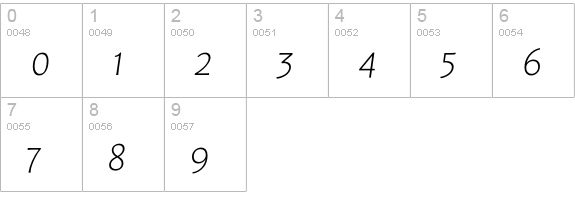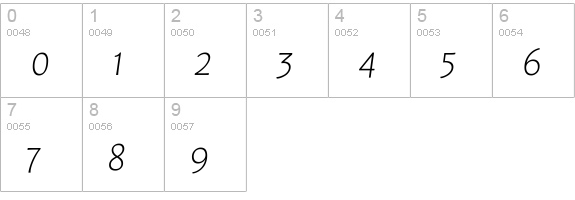
Leksa Sans ExtraLight Italic is an airy, ultra-refined, italic variant in the Leksa typeface family \xE2\x80\x94 well suited to minimalist headlines and refined display use.
Leksa Sans ExtraLight Italic font exudes elegance and sophistication with its delicate and slanted design. The subtle slant adds a touch of modernity to the otherwise classic sans serif style, making it perfect for projects that require a blend of tradition and contemporary flair. This font is ideal for creating a sense of lightness and grace in various design projects, from branding to editorial layouts. Its clean lines and stylish italicized form make it a versatile choice for both print and digital applications. The best part? Leksa Sans ExtraLight Italic font is available for free download at FontsMarket.com. Now you can elevate your designs with this beautiful typeface without any cost. Download it today and add a touch of sophistication to your projects effortlessly.